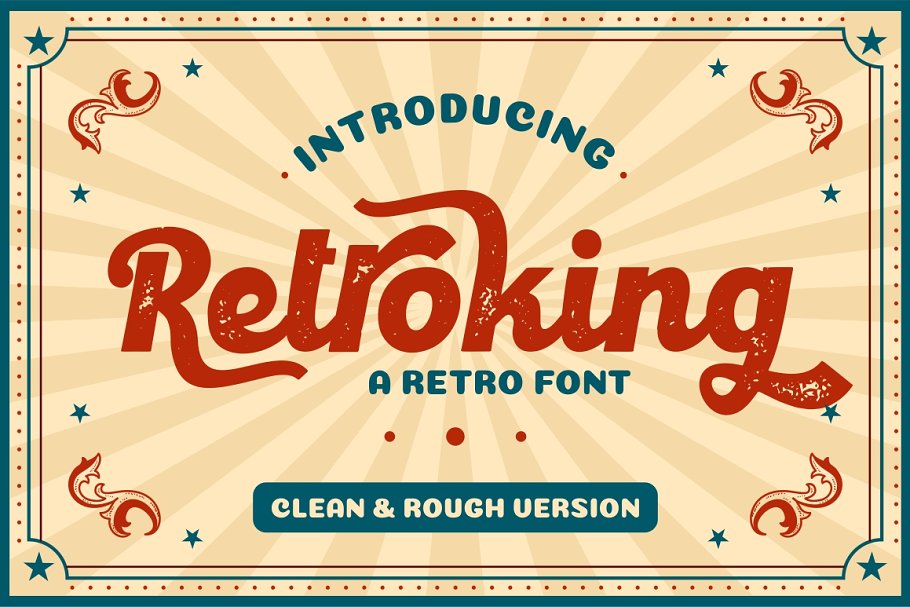
Looking for the perfect font to elevate your design projects? Look no further than Retroking - Retro Font! Created by the talented Putra Novembria Candra Kusuma from Putracetol Studio, this font is a must-have for anyone in need of a vintage and retro style.
With its clean and rough font versions, Retroking is incredibly versatile and suitable for a wide range of design purposes. Whether you're working on badges, logos, t-shirts, posters, branding, packaging, signage, or book covers, this font will add a touch of nostalgia and uniqueness to your projects.
One of the standout features of Retroking is its extensive range of alternates, allowing you to create stunning lettering. This font also supports multiple languages, ensuring that you can express yourself in any language you desire.